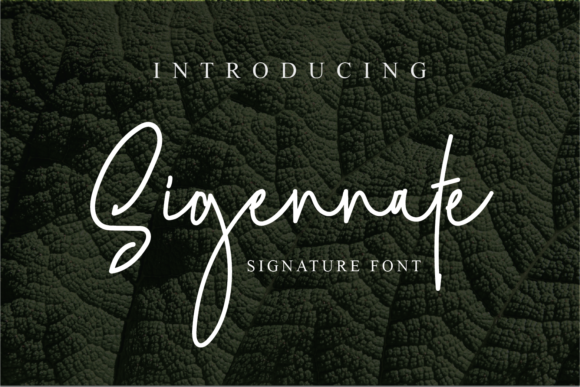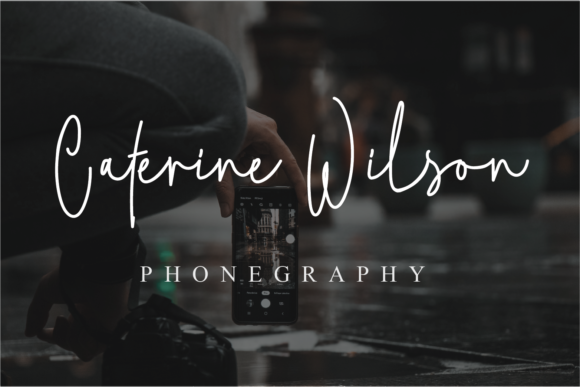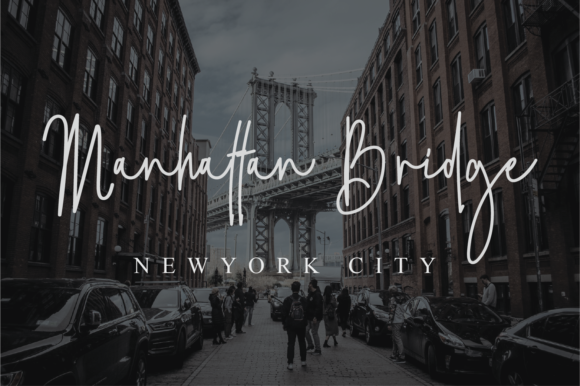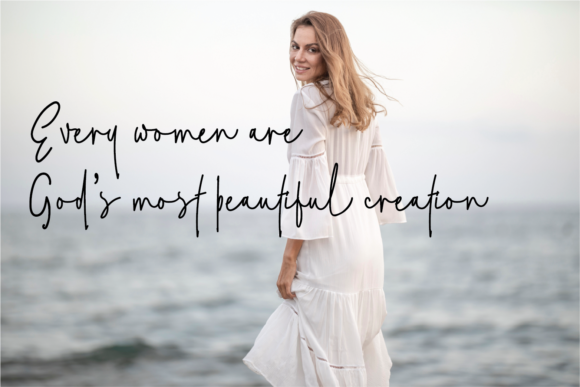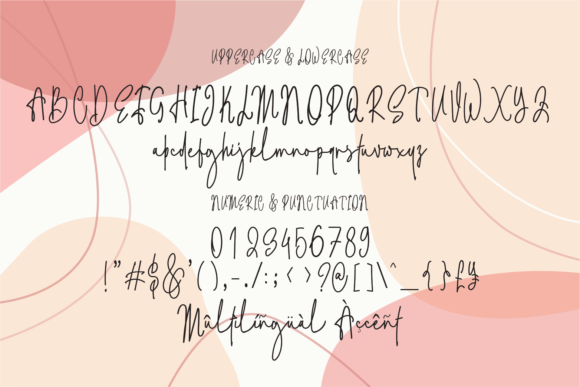
About Sigennate Font
Sigennate is a refined and delightful script font that exudes elegance and charm. With its unique and well-crafted letterforms, this font is a great choice for creating eye-catching logos, branding materials, and quotes that leave a lasting impression.
When it comes to logos, Sigennate adds a touch of sophistication and style. The script style of the font lends itself well to creating visually appealing and memorable logos. Whether you’re designing a logo for a luxury brand, a creative business, or a boutique service, Sigennate can elevate your logo design with its unique and all-around touch. The flowing curves and graceful strokes of the font give your logo a sense of elegance and professionalism.
Branding materials benefit from the refined and delightful nature of Sigennate. Whether you’re designing business cards, stationery, packaging, or any other branded materials, this font adds a touch of sophistication and personality. The unique letterforms and all-round touch of the font make your branding materials stand out, helping to create a cohesive and visually appealing brand identity.
Quotes and inspirational messages become even more captivating with the use of Sigennate. The elegant and refined script font adds a touch of beauty and grace to your quotes, making them visually striking and impactful. Whether you’re creating quote graphics for social media, posters, or inspirational prints, Sigennate brings your words to life with its unique and captivating style.
One of the notable features of Sigennate is its ability to make your design come alive. The unique letterforms and the attention to detail in each letter give your design a distinct and lively appearance. Whether it’s a headline, a title, or a decorative element, Sigennate adds a touch of vibrancy and elegance to your design.
In summary, Sigennate is a refined and delightful script font that is perfect for creating eye-catching logos, branding materials, and quotes. With its unique and all-round touch, this font adds elegance and charm to your designs, helping them stand out and make a lasting impression. Whether you’re designing a logo, branding materials, or creating inspiring quotes, Sigennate brings your design to life with its sophisticated and captivating style.